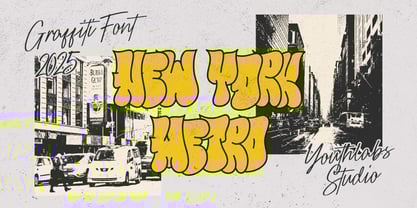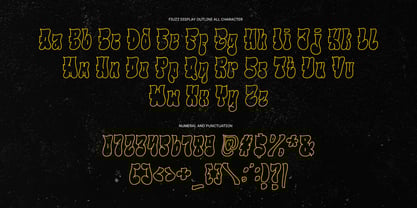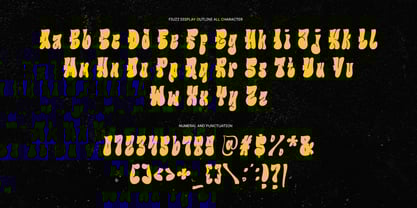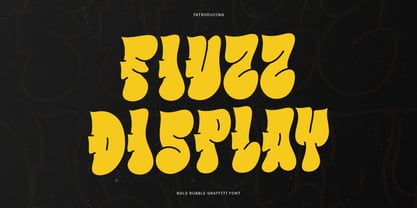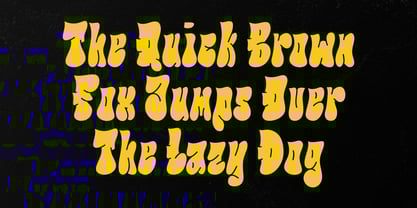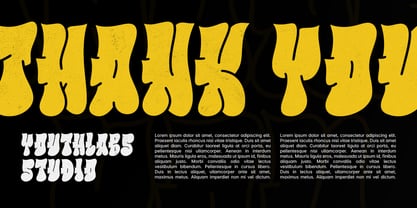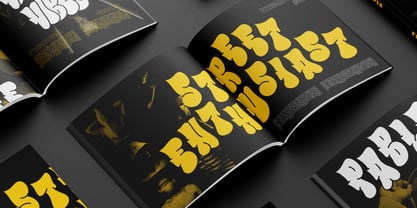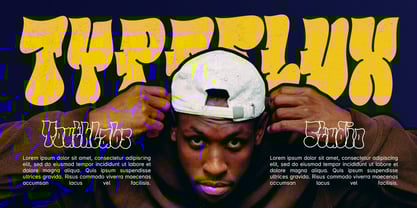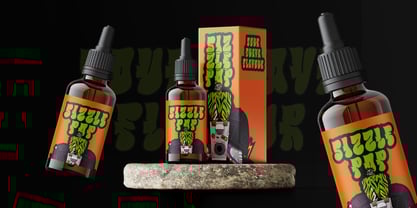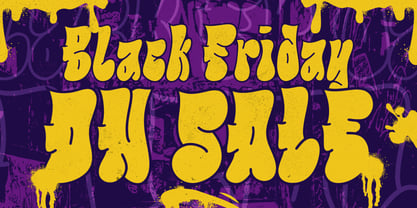
Fiuzz
by Youthlabs
The Fiuzz Font Family was designed by Fathi Al Ghazi and published by Youthlabs. Fiuzz contains 2 styles and family package options. More about this family
Fiuzz Display is a bold, attitude-packed display font built for headlines that demand attention. With chunky, bubbly letterforms and an urban graffiti twist, this typeface oozes raw energy and underground culture. Perfect for music posters, streetwear branding, zines, or any design needing rebellious flair.
Its rounded, inflated shapes echo spray-can tags and retro hip-hop vibes, while its loud contrast and shadowing give it an eye-popping 3D presence. Whether you’re crafting gritty album art or edgy merchandise, Fiuzz Display brings the heat—loud, unapologetic, and full of motion.